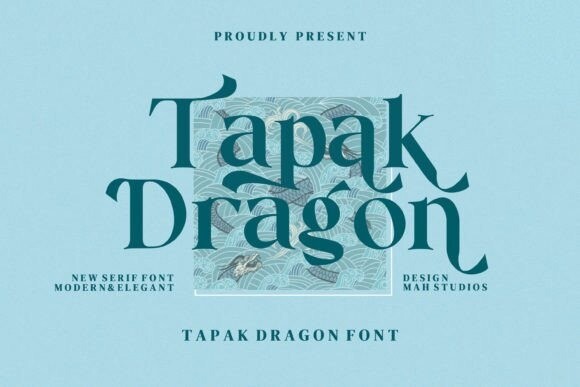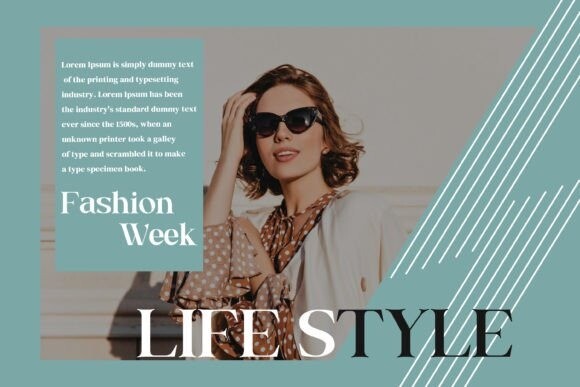
Tapak Dragon Font
Tapak Dragon is a stylish and cool serif font. Whether you’re using it for crafting, digital designing, presentations, or social media posts, it’s perfect!